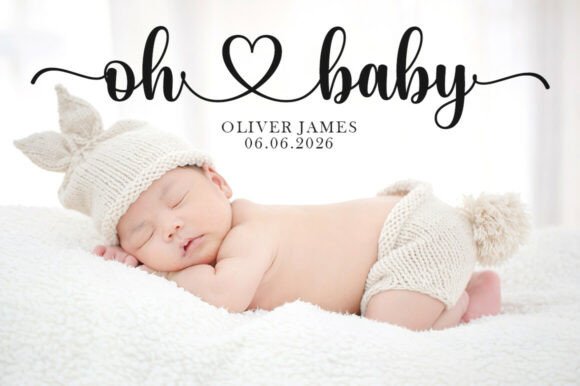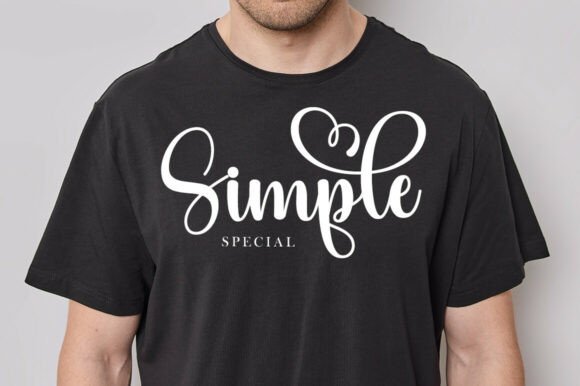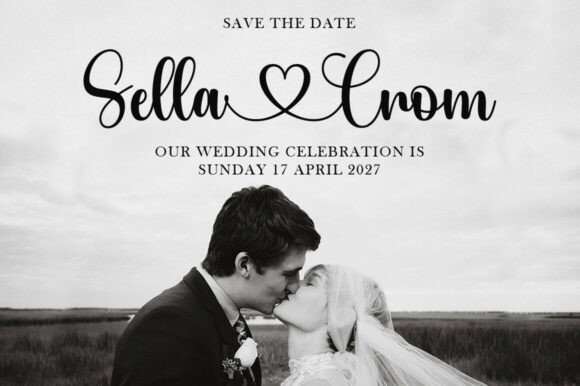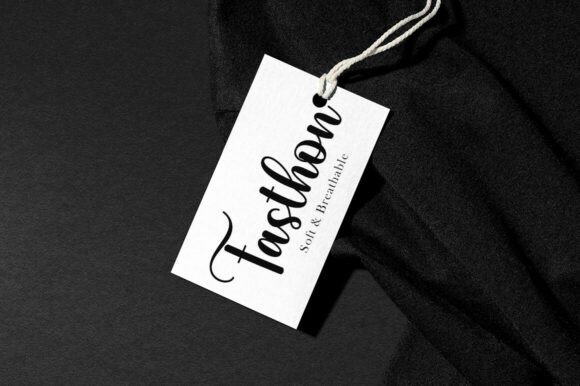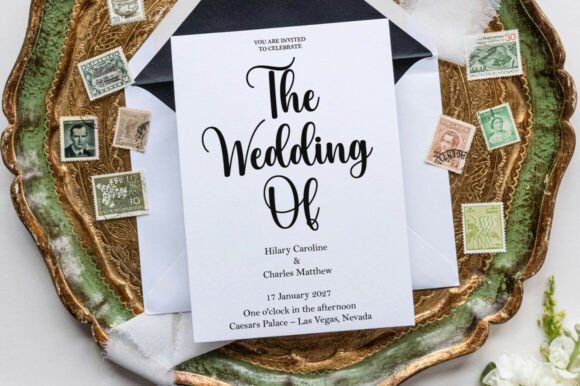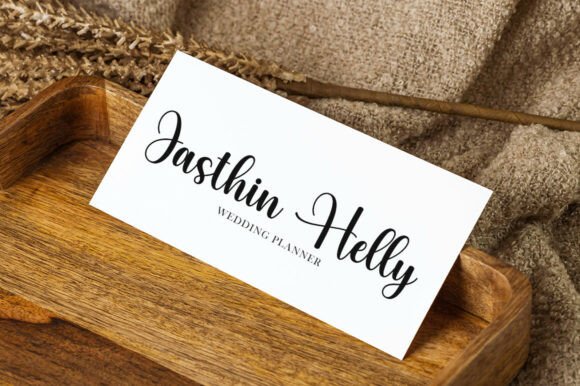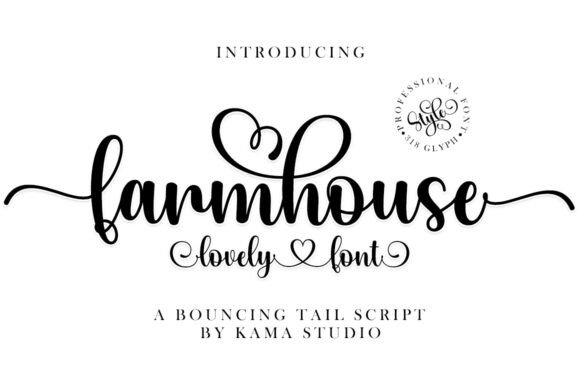
Introducing Farmhouse Font: The Perfect Blend of Whimsy and Sophistication
In the world of typography, fonts play a crucial role in bringing designs to life. Among the numerous font styles available, Farmhouse font has gained significant attention for its unique and spirited vibe. This intricately crafted Bouncing Tail Script font is designed to add a touch of elegance and sophistication to various design projects. In this article, we’ll explore the features and applications of Farmhouse font, making it a must-have for designers and crafters.
The Birth of Farmhouse Font
Farmhouse font was curated with a singular vision – to breathe life into designs. Its creators aimed to develop a font that would evoke a sense of cool uniqueness, making it a fitting choice for a wide range of applications. From personal letters to event invitations, and even food product labeling, Farmhouse font has proven to be a versatile and charming addition to any design project.
Farmhouse font boasts several key features that set it apart from other fonts:
- Intricately crafted Bouncing Tail Script font: Farmhouse font features a distinctive bouncing tail script style, which adds a touch of whimsy and playfulness to designs.
- Versatile charms: The font’s unique charm makes it suitable for various applications, from personal letters to event invitations and food product labeling.
- Sophisticated and elegant: Farmhouse font brings a touch of sophistication and elegance to titles, making it perfect for designs that require a high level of refinement.
Applications of Farmhouse Font
Farmhouse font is an excellent addition to any design project, and its versatility makes it suitable for a wide range of applications:
- Personal Letters: Add a touch of whimsy and personality to personal letters with Farmhouse font.
- Event Invitations: Create eye-catching and elegant event invitations that set the tone for a memorable occasion.
- Food Product Labeling: Elevate food product labeling with a touch of sophistication and elegance, making products stand out on store shelves.
- Titles and Headings: Use Farmhouse font to add a touch of refinement and sophistication to titles and headings, making designs more engaging and visually appealing.
Why Choose Farmhouse Font?
With so many fonts available, why choose Farmhouse font? Here are a few compelling reasons:
- Unique and distinctive: Farmhouse font offers a unique and distinctive style that sets it apart from other fonts.
- Versatile: The font’s versatility makes it suitable for a wide range of applications, from personal letters to event invitations and food product labeling.
- Elegant and sophisticated: Farmhouse font brings a touch of elegance and sophistication to designs, making it perfect for projects that require a high level of refinement.
To get the most out of Farmhouse font, here are a few tips:
- Experiment with font sizes: Farmhouse font looks great in various font sizes, so experiment to find the perfect size for your design.
- Pair with complementary fonts: Pair Farmhouse font with complementary fonts to create visually appealing and engaging designs.
- Use in moderation: While Farmhouse font is elegant and sophisticated, use it in moderation to avoid overwhelming the design.
Farmhouse font is an exceptional addition to any design project, offering a unique blend of whimsy and sophistication. Its versatility, elegance, and distinctive style make it a fitting choice for various applications. Whether you’re a designer or crafter, Farmhouse font is sure to bring your designs to life. So why wait? Explore the creative possibilities of Farmhouse font today and take your designs to new heights!